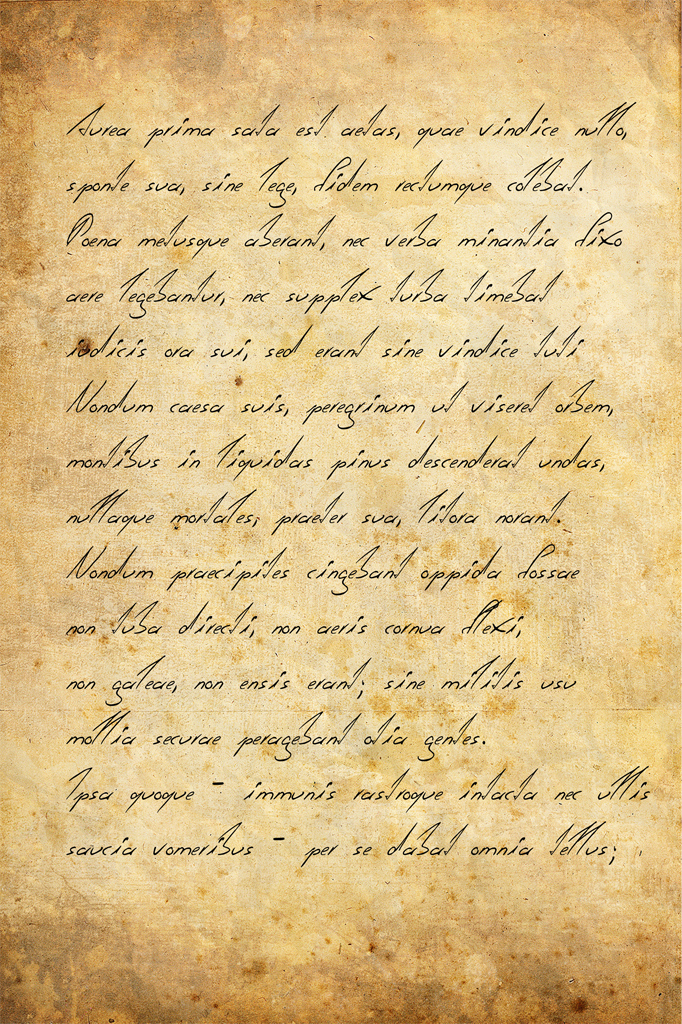
Just Nate - Handwritten Font by ~just-Nate is a really stunning handmade font. Thanks for sharing.
Golden was that first age which unconstrained,
With heart and soul, obedient to no law,
Gave honor to good faith and righteousness.
No punishment they knew, no fear; they read
no penalties engraved on plates of bronze.
No suppliant throng with dread beheld their judge;
No judges hat they then, but lived secure.
No pine had yet, on its high mountain felled,
Descended to the sea to find strange lands
Afar; men knew no shores exept their own.
No battlements their cities yet embraced,
No trumpets straight, no horns of sinuous brass,
No sword, no helmet then - no need of arms;
The world untroubled lived it leisured ease.
Earth willingly, untouched, unwounded yet
By hoe or plough, gave all her bountous store;
This is my own font - just scanned my exercise book and cut out the letters